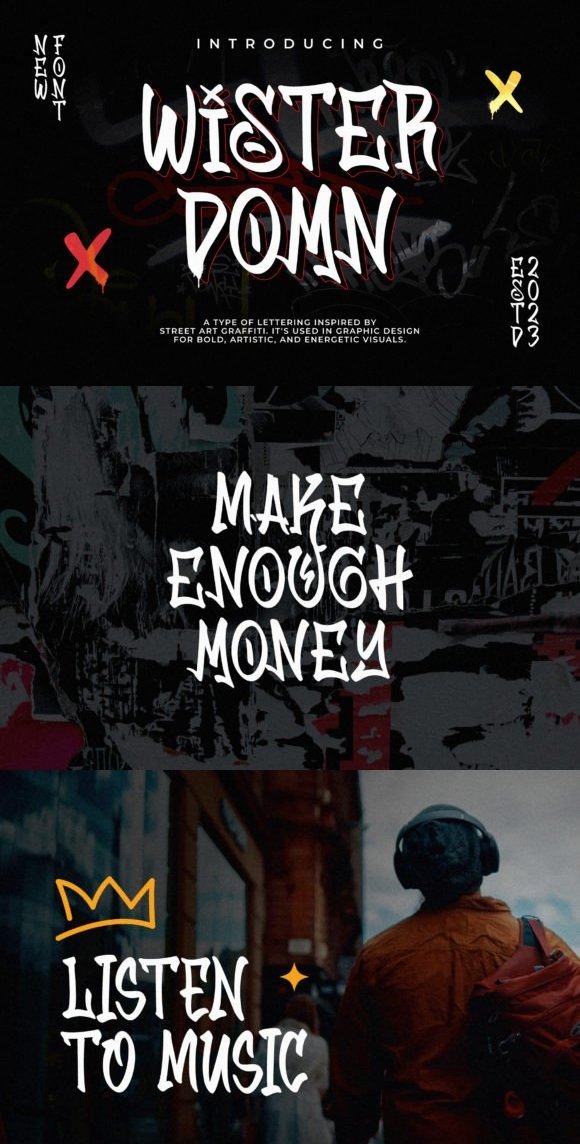
Wister Domn is an edgy graffiti-style display font exuding urban flair and street art vibes. With its bold strokes and expressive characters, Wister Domn captures the energy and attitude of graffiti culture. Perfect for posters, album covers, and urban-themed designs, Wister Domn adds a rebellious touch to any project.